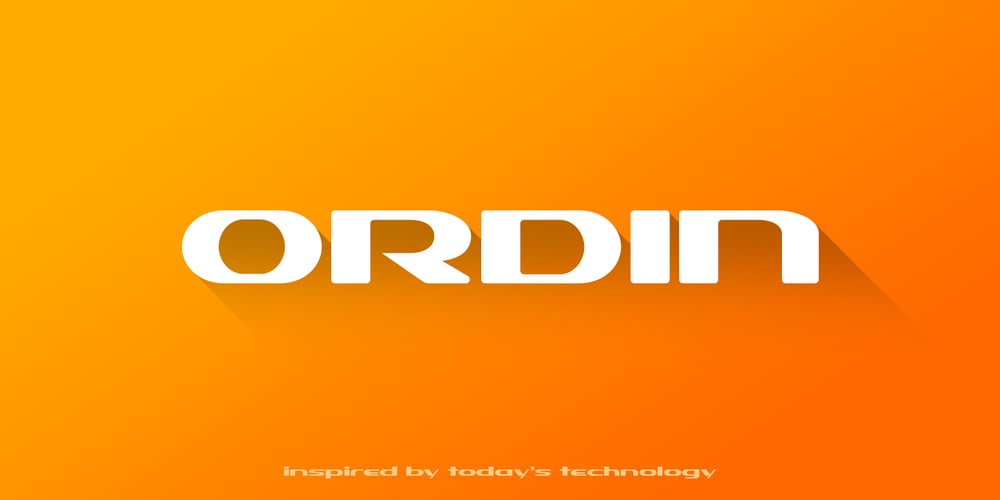
Ordin Font Family was designed by Robert Corseanschi and published by Robert Corseanschi. Ordin contains 2 styles and family package options. Ordin is inspired by today’s technology with a unique and clean look which stands out from the other fonts from its category.